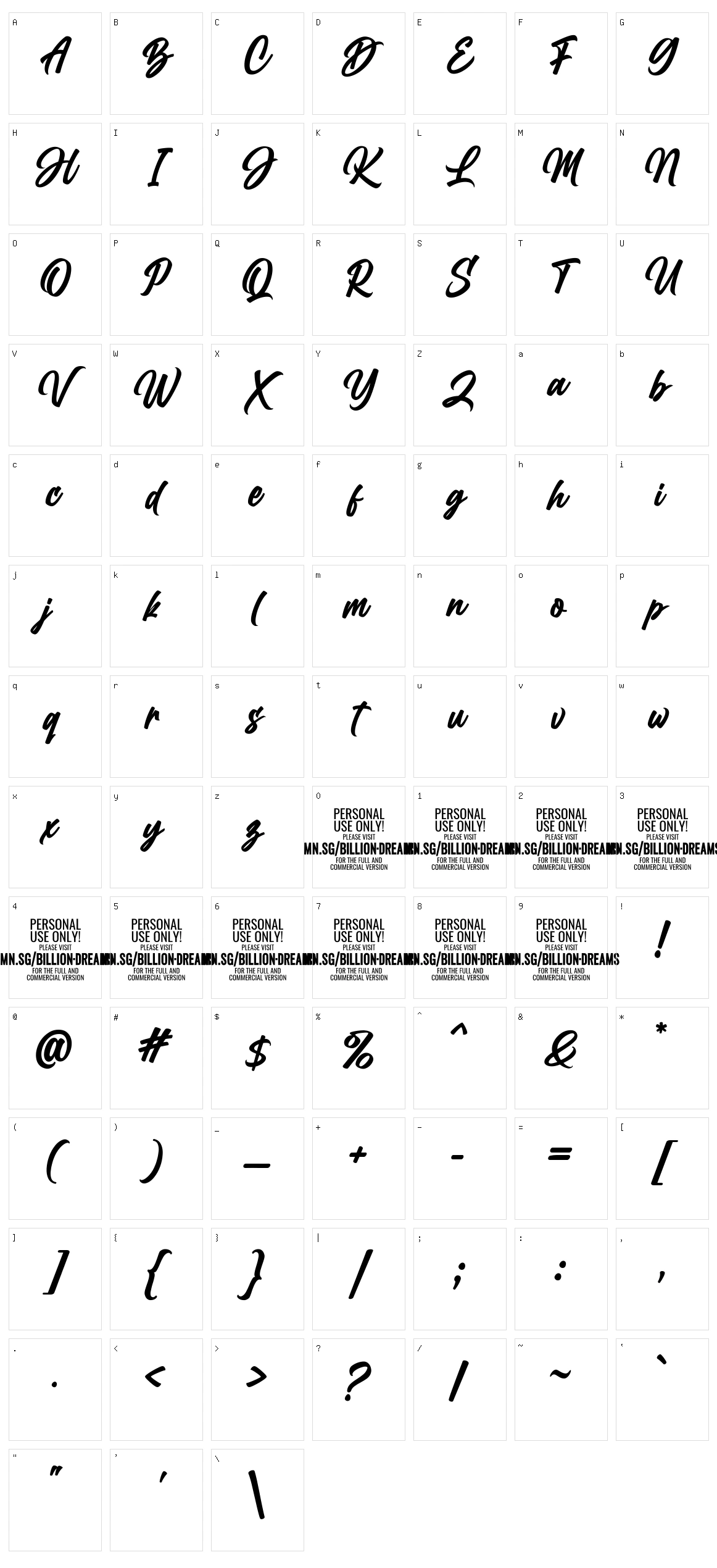
Billion Dreams is a cool logotype script font.
It has thick brush strokes that gives character and personality to any graphic.
It contains stylistic alternates, swash alternates, ligatures and swash characters -- all to give the font a great variability and avoid repetitiveness.
It has an extensive lingual support, covering all European Latin scripts.
The font contains all characters you'll ever need, including all punctuation and numbers.